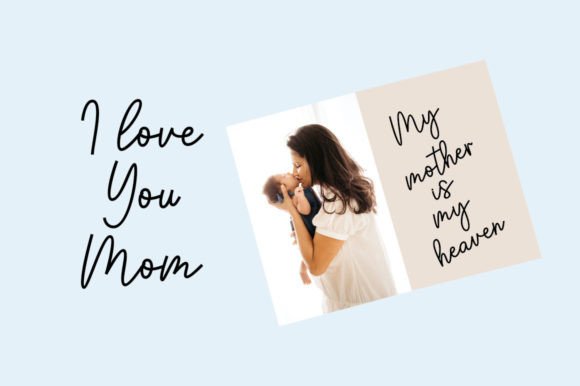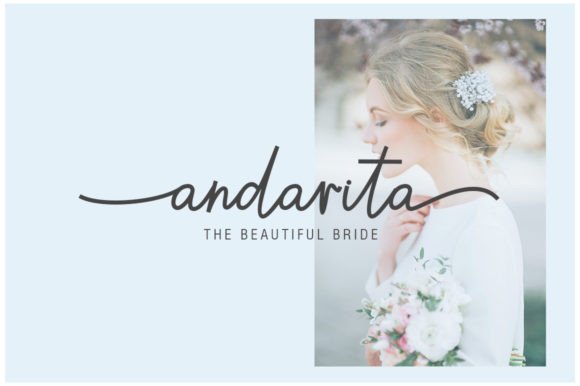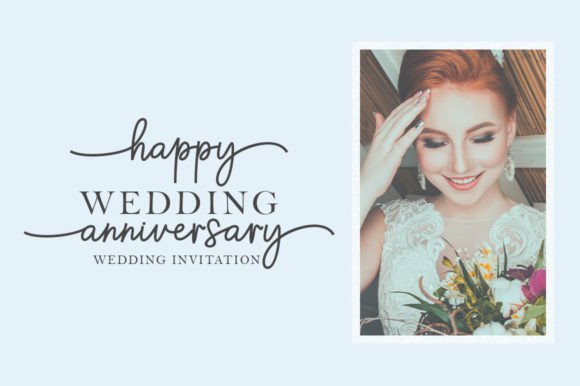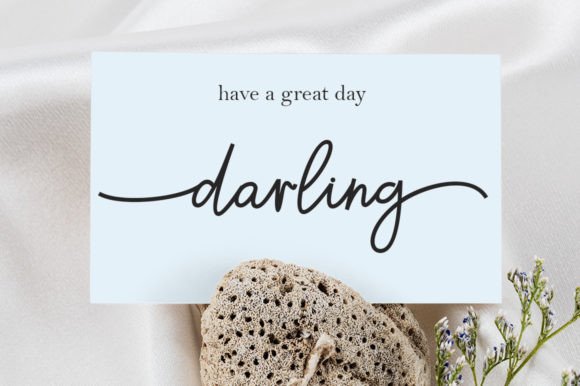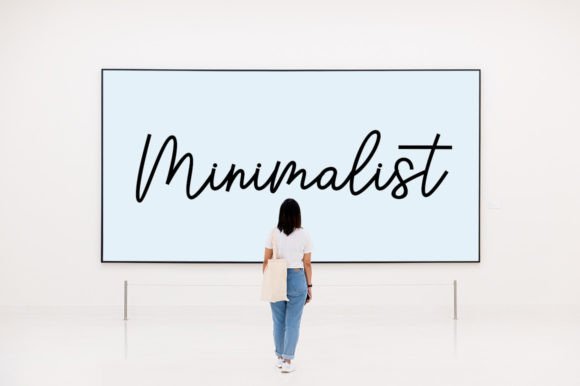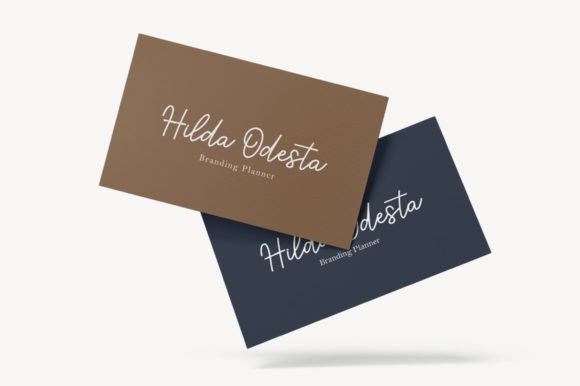
Introducing Farmhouse Font: The Perfect Addition to Your Design Arsenal
Are you a designer or crafter looking for a unique and authentic handwritten font to elevate your creative projects? Look no further than Farmhouse Font, a romantic and elegant font that is sure to become a true favorite in your design collection. In this article, we’ll take a closer look at the features and benefits of Farmhouse Font, and explore how it can be used to take your designs to the next level.
Farmhouse Font is a beautifully crafted handwritten font that exudes a sense of romance and sophistication. Expertly designed to be both legible and visually appealing, this font is perfect for use as a title or body text in a variety of design projects. Whether you’re creating magazine headlines, social media graphics, branding materials, wedding invitations, or cards, Farmhouse Font is the perfect choice.
- Authentic Handwritten Style: Farmhouse Font features an authentic handwritten style that adds a personal touch to any design project.
- Romantic Touch: The font’s romantic and elegant feel makes it perfect for designs that require a touch of sophistication.
- Legible and Versatile: Farmhouse Font is both legible and versatile, making it suitable for use as a title or body text in a variety of design projects.
- PUA Encoded: The font is PUA encoded, which means you can access all of the glyphs and swashes with ease, giving you maximum creative flexibility.
Uses for Farmhouse Font
Farmhouse Font is a versatile font that can be used in a wide range of design projects, including:
- Magazine Headlines: Use Farmhouse Font to create eye-catching headlines for magazines, newspapers, and other publications.
- Social Media Graphics: Add a touch of elegance to your social media graphics with Farmhouse Font.
- Branding Materials: Use Farmhouse Font to create professional and cohesive branding materials, such as logos, business cards, and letterheads.
- Wedding Invitations: Farmhouse Font is perfect for creating beautiful and romantic wedding invitations, save-the-dates, and other wedding stationery.
- Cards and Stationery: Use Farmhouse Font to create personalized cards, stationery, and other paper crafts.
Benefits of Using Farmhouse Font
There are many benefits to using Farmhouse Font in your design projects, including:
- Unique and Authentic Style: Farmhouse Font offers a unique and authentic handwritten style that will set your designs apart from the rest.
- Ease of Use: The font is easy to use and can be accessed with ease, thanks to its PUA encoding.
- High Versatility: Farmhouse Font is highly versatile and can be used in a wide range of design projects.
- Professional Quality: The font is of professional quality, making it perfect for use in commercial design projects.